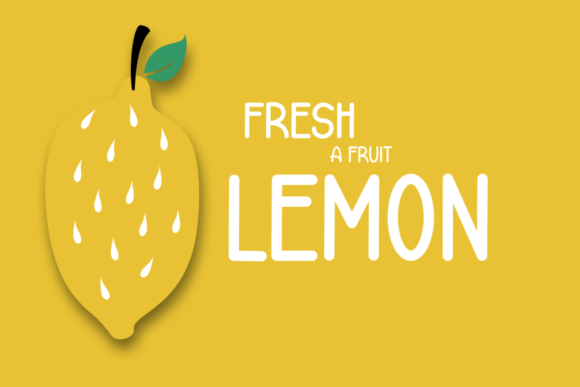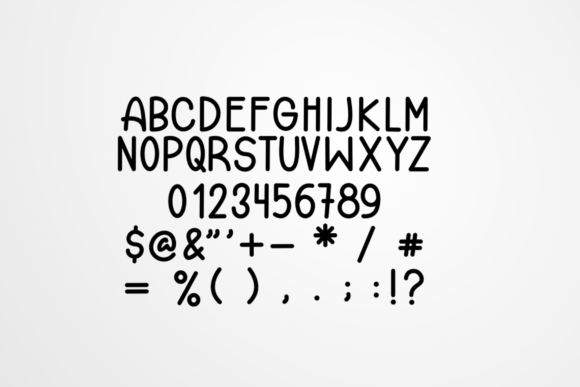
Introduction to Raphiqes Font Font
Fonts play a crucial role in design, and the Raphiqes Font font is a typeface that brings both character and versatility to any project. Whether you’re working on a branding project, a website, or a print design, the Raphiqes Font font offers a unique style that can elevate your work.
Raphiqes is an authentic all-caps handwritten font suitable for branding, logos, T-shirt printing, Esports, and many more.
Add it to your fonts library, as it is outstanding in a wide range of contexts .
Key Features of Raphiqes Font Font
Why Choose Raphiqes Font Font?
The Raphiqes Font font is more than just a typeface – it’s a design tool that helps you communicate your message with style and clarity. Its unique character set and versatile design make it suitable for a wide range of applications, from elegant invitations to bold headlines.
With its carefully crafted letterforms and balanced proportions, the Raphiqes Font font ensures readability and visual appeal across all mediums.
What makes Raphiqes Font font special?
The Raphiqes Font font stands out with its unique design, exceptional readability, and versatility across various design applications.